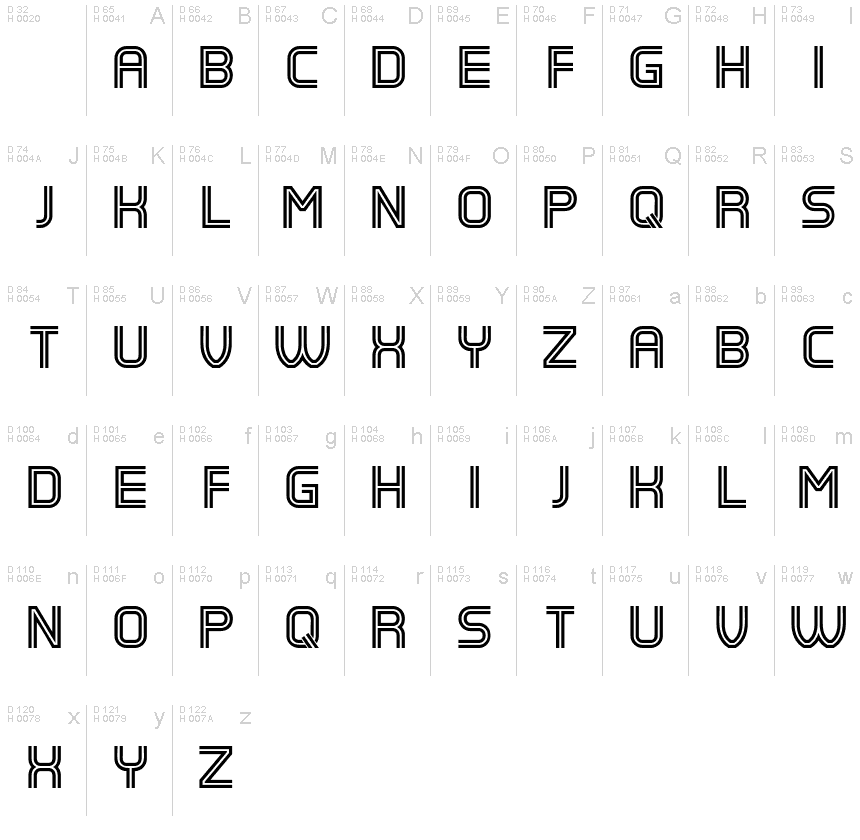
Catalog, designed by Vladimir Nikolic, stands out with its semi-expanded width and bold character. Its striking linear structure and clean geometry lend it a modernist yet timeless appeal. The font's substantial weight paired with its generous spacing makes a confident statement on any canvas.
The crisp lines and precise angles of Catalog convey clarity and sophistication, making it an excellent choice for editorial use in magazines, branding for luxury products, or digital platforms seeking a chic minimalist aesthetic. Its legibility and strong presence ensure that it performs well across various applications - from large-scale signage to fine print.
Catalog's versatility extends to creative projects that demand a touch of elegance without sacrificing impact. Whether employed in the design of an avant-garde art book or utilized in the sleek interface of a cutting-edge app, Catalog is poised to elevate the visual narrative with its distinct style and indisputable charisma.